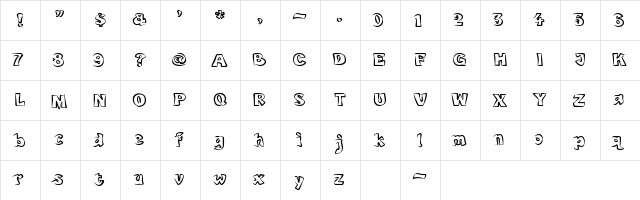
bobotoh Regular
| Designer | wates awal |
Design Context for bobotoh Typeface
bobotoh is a composed and adaptable typeface that performs quietly and consistently across a wide range of design contexts.